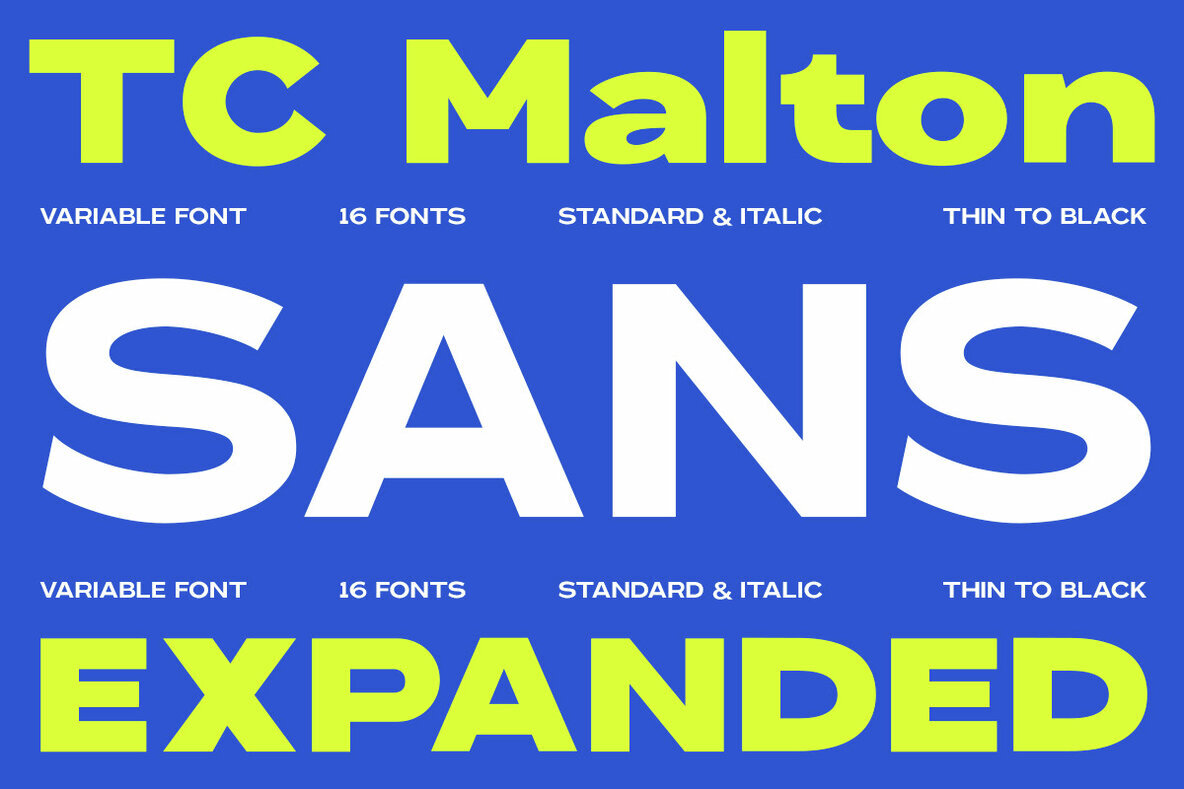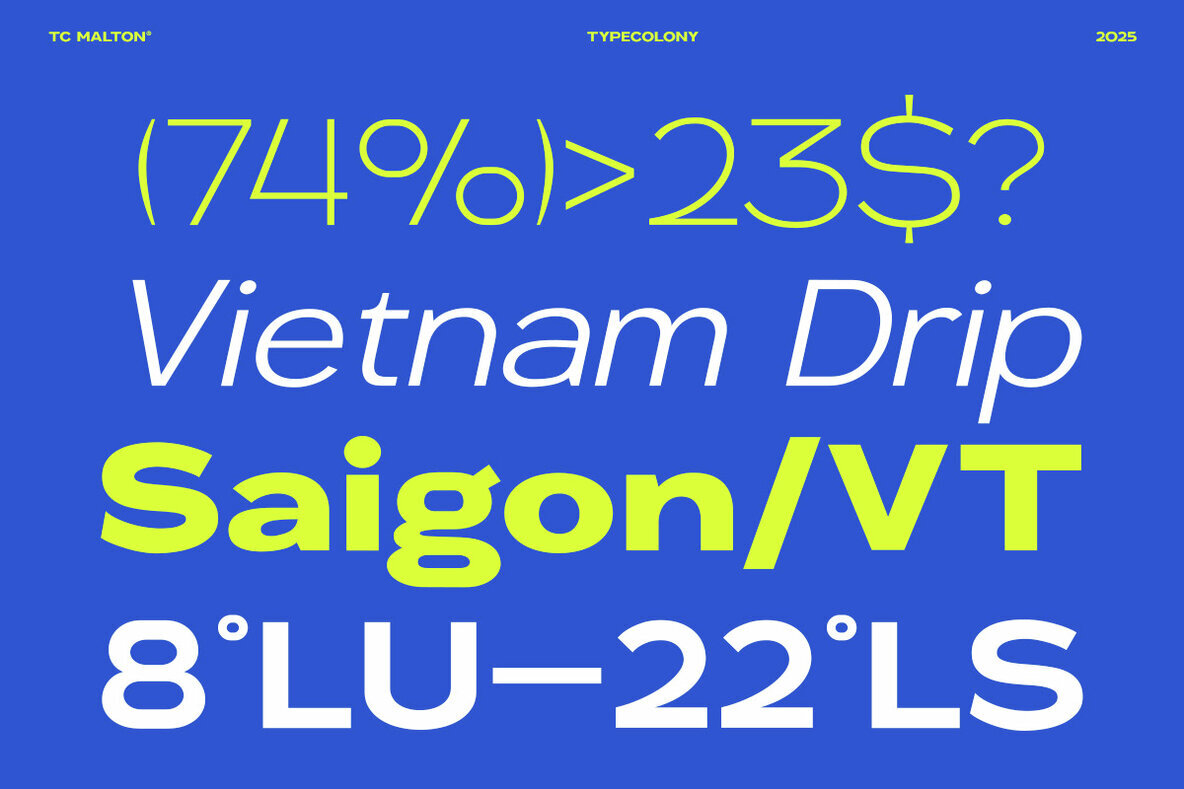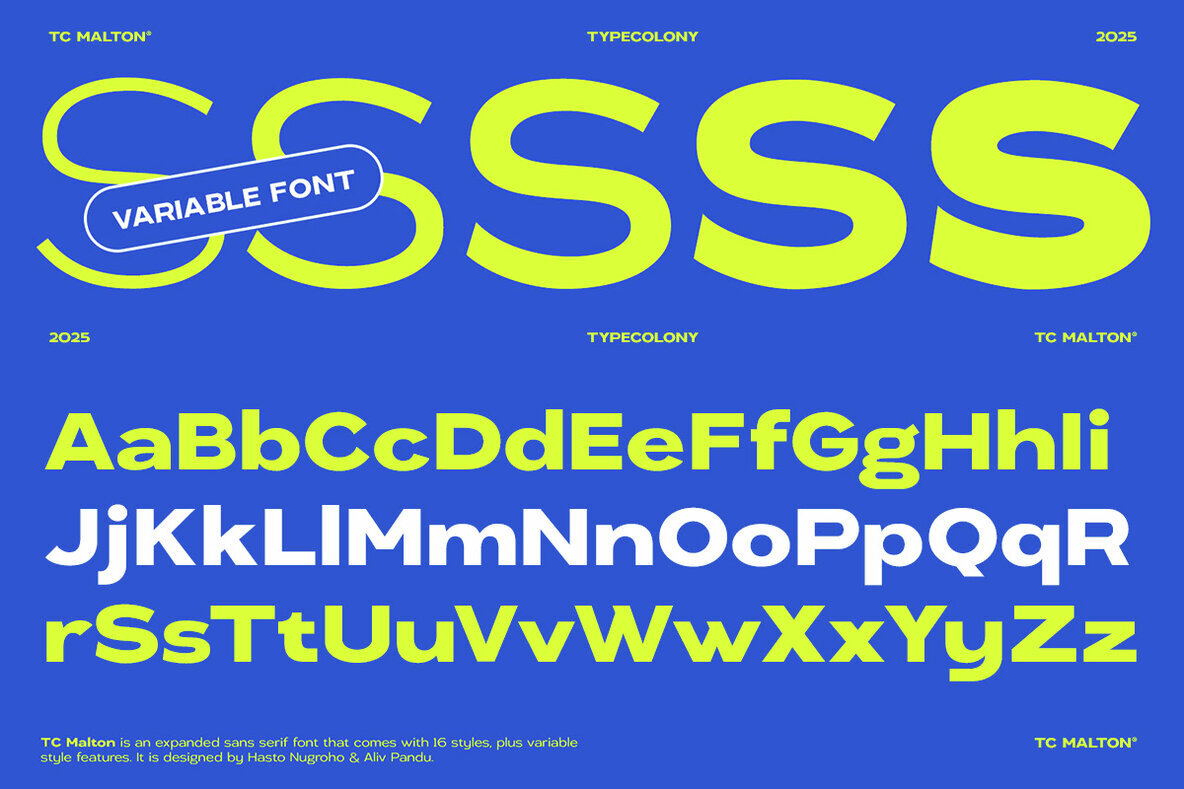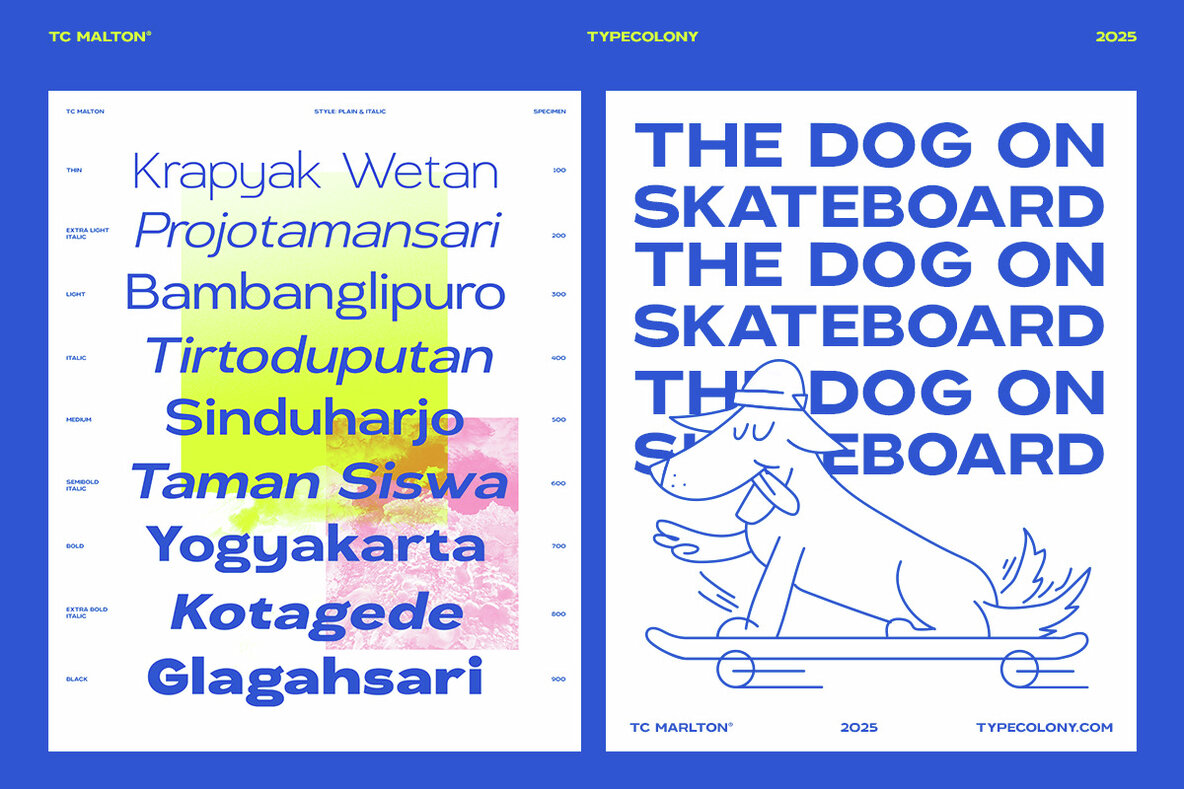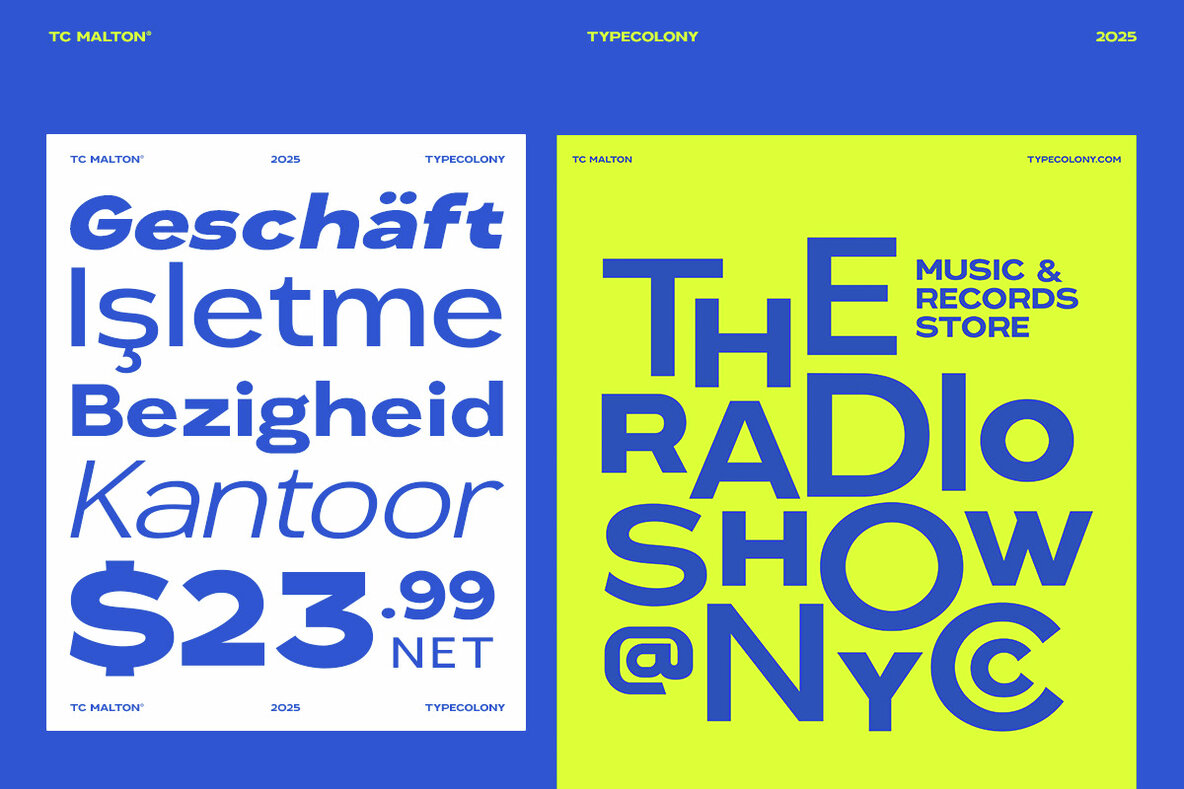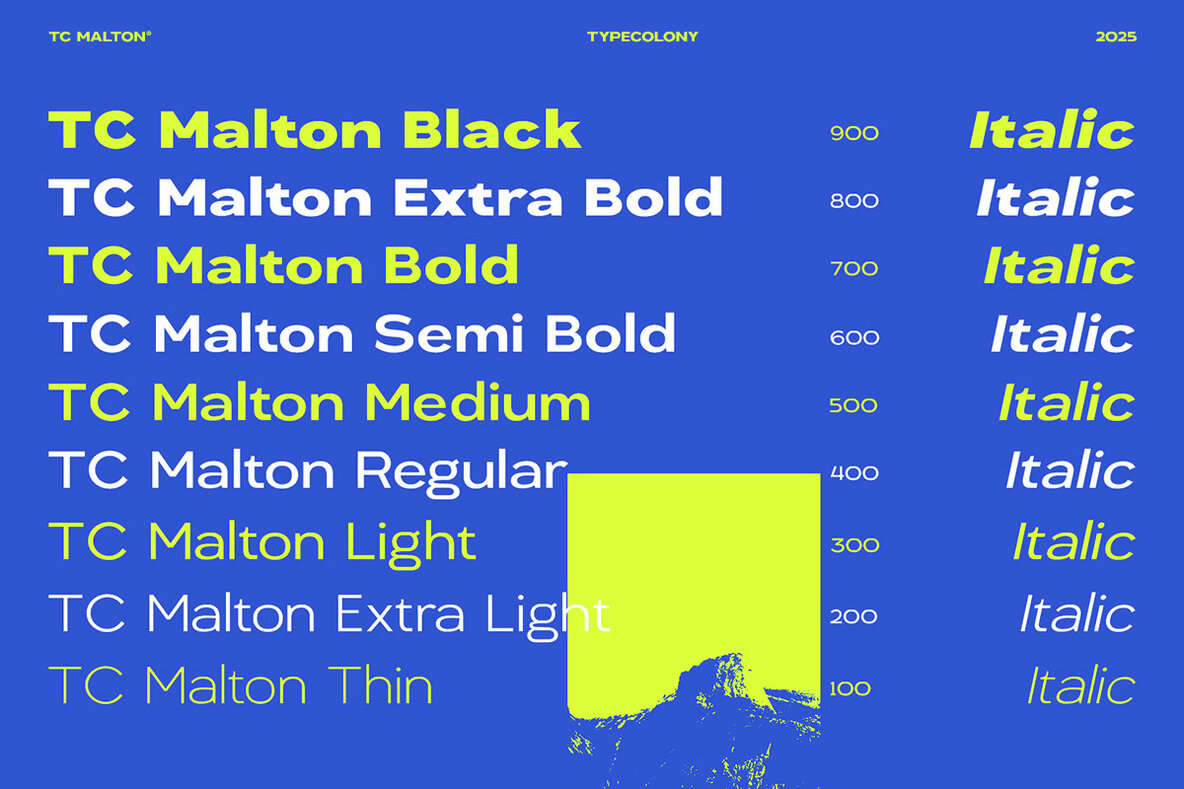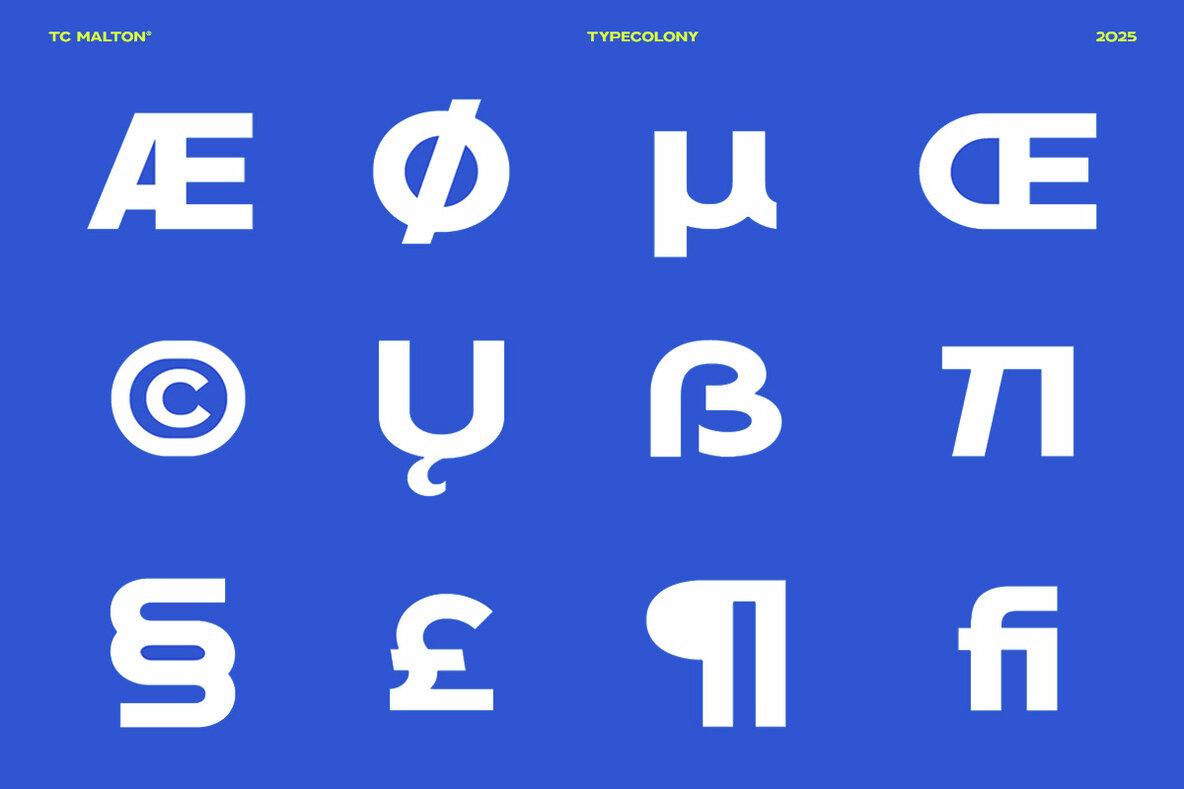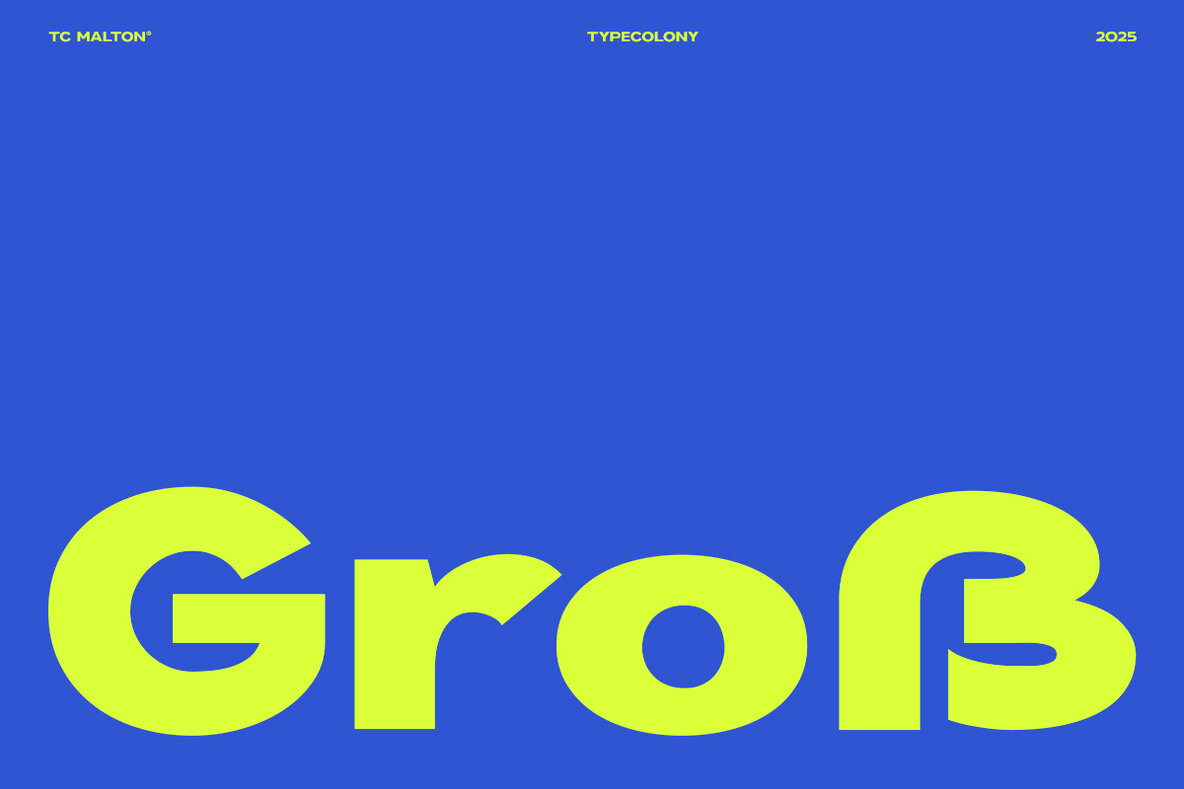
TC Malton Font
TC Malton presents a clean and contemporary sans serif typeface that prioritizes versatility and impact. With its variable font feature, it enables seamless adjustment of weight and width to meet a spectrum of design specifications, catering to everything from dynamic headlines to nuanced subtexts. One remarkable feature of TC Malton is its expanded style, which imparts a wide and confident presence to your typography. This quality makes TC Malton particularly well-suited for applications in branding, posters, editorial layouts, web interfaces, and modern packaging. Featuring crisp, geometric letterforms, it assures excellent readability while maintaining a strong visual identity.TC Malton: Adaptable Sans Serif for Modern Design